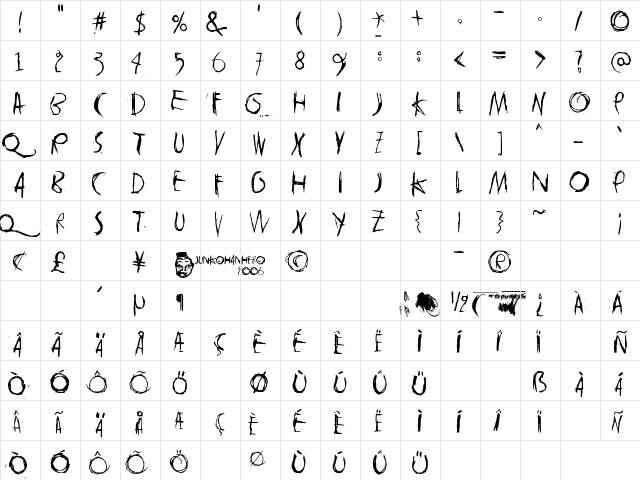
tasapainoaisti Regular
| Designer | junkohanhero |
Design Context for tasapainoaisti Typeface
tasapainoaisti is a composed and adaptable typeface that performs quietly and consistently across a wide range of design contexts.